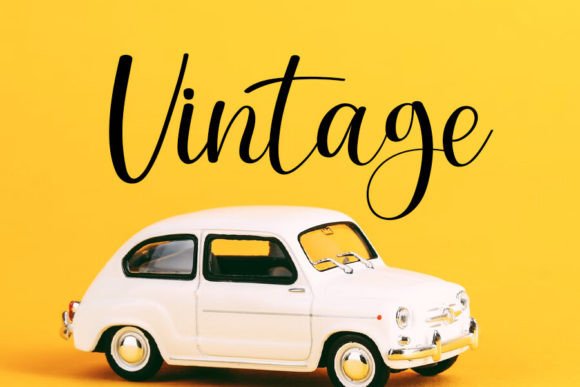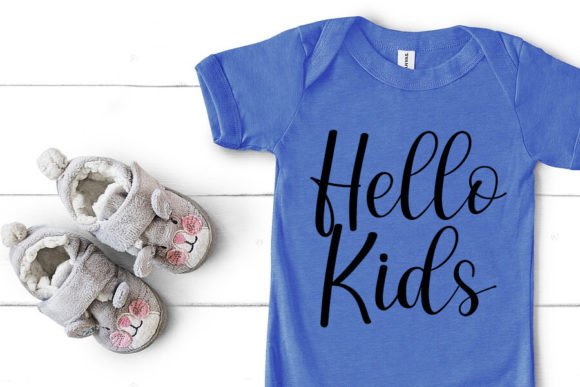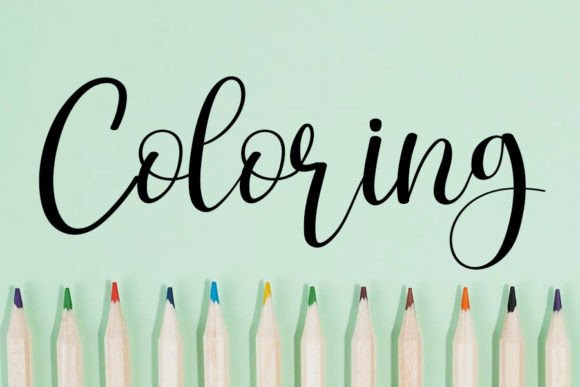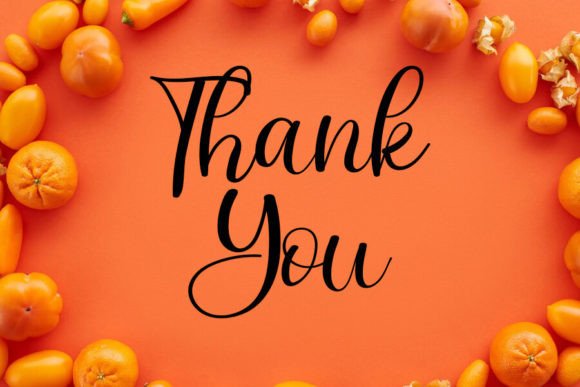
The Art of Handwritten Charm: Unlocking the Beauty of Calligraphy Font
Have you ever received an invitation or a card that made you feel special, simply because of the way it was written? Maybe it was a beautifully handwritten note from a loved one, or a wedding invitation that set the tone for a magical day. Those moments are often made possible by the art of calligraphy, a charming handwritten font that combines elegance with a personal touch.
Calligraphy Font is more than just a typeface – it’s a way to add warmth and personality to your designs. Its smooth, flowing strokes and whimsical character make it ideal for heartfelt invitations, cozy branding, and creative projects. Whether you’re a designer looking to add a touch of sophistication to your work, or a crafter seeking to make your handmade goods stand out, Calligraphy Font is a valuable asset in your creative toolkit.
Key Features of Calligraphy Font
- Unique Characteristics: Distinctive, elegant, and cursive style with flourishes and swashes, making it ideal for formal invitations, wedding stationery, and luxury branding.
- Style Variations: Includes multiple style variations, such as regular, bold, italic, and bold italic, to provide designers with flexibility and creativity.
Calligraphy Font Review
Overall, I’d say the Calligraphy Font is a great addition to any design project that needs a touch of elegance and sophistication ✨. The font’s flowing script style and ornate details make it perfect for creating invitations, wedding cards, and other special occasion designs.
Here are some things that really work well:
- Unique character set: The font has a wide range of characters, including letters, numbers, and symbols, which makes it perfect for creating complex designs ✨.
- Lack of OpenType features: The font doesn’t support advanced OpenType features, such as ligatures and swashes, which can limit its creative possibilities ⚠️.
Overall, I’d give the Calligraphy Font 4 out of 5 stars. While it has some limitations, its unique style and customization options make it a great choice for designers who want to add a touch of elegance to their projects.
Tips for Getting the Most Out of Calligraphy Font
1. Experiment with different font sizes and styles to create a unique look.
2. Use calligraphy font for titles, headings, and other emphasis text.
3. Combine calligraphy font with other fonts to create a visually appealing design.
4. Practice makes perfect – experiment with different calligraphy fonts and techniques to develop your skills.
Common Use Cases for Calligraphy Font
1. Wedding invitations and stationery
2. Event signage and banners
3. Menu design and typography
4. Personalized gifts and stationery
Can I customize a Calligraphy Font to fit my specific design needs?
While calligraphy fonts are often designed to be used as-is, some font vendors may offer customization options or allow you to commission a custom calligraphy font. Additionally, you can use design software to manipulate the font’s characteristics, such as adjusting the letter spacing, font size, or color. However, be aware that excessive customization may compromise the font’s authenticity